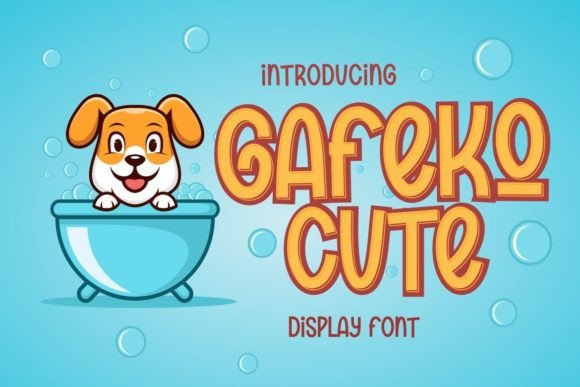
Dive into the world of Gafeko Cute, a display font that embodies playfulness and charm. Its rounded, bubbly letters dance across your designs, adding a touch of whimsy that's sure to captivate and delight. Inspired by the magic of childhood, Gafeko Cute is a font that sparks joy and creativity.
With its playful and inviting personality, Gafeko Cute is the perfect choice for creating designs that resonate with a younger audience. Imagine the wonder in their eyes as they encounter your designs adorned with this captivating font. Engage them with playful headlines, titles, and logos that speak their language and spark their imagination.
Step into a world where cuteness takes center stage. Gafeko Cute is a font that oozes charm and playfulness, making it perfect for adding a touch of fun and personality to your designs. Its irresistibly charming letters will draw attention and leave a lasting impression on your audience. Unleash your creativity and let Gafeko Cute transform your designs into masterpieces of whimsy and delight.
Go beyond the ordinary and embrace the extraordinary. Gafeko Cute is not just a font; it's an invitation to let your imagination soar. Its playful style and infectious charm will infuse your designs with a vibrant energy that's sure to leave an unforgettable mark. Dare to be different, dare to be playful, and let Gafeko Cute lead you on a journey of creative exploration.
Don't settle for the mundane; embrace the delightful. Gafeko Cute is the key to unlocking a world of cuteness and whimsy in your designs. Its endearingly playful letters will warm hearts and bring smiles to faces. Embrace the power of cuteness and watch as your designs transform into charming expressions of joy and happiness.